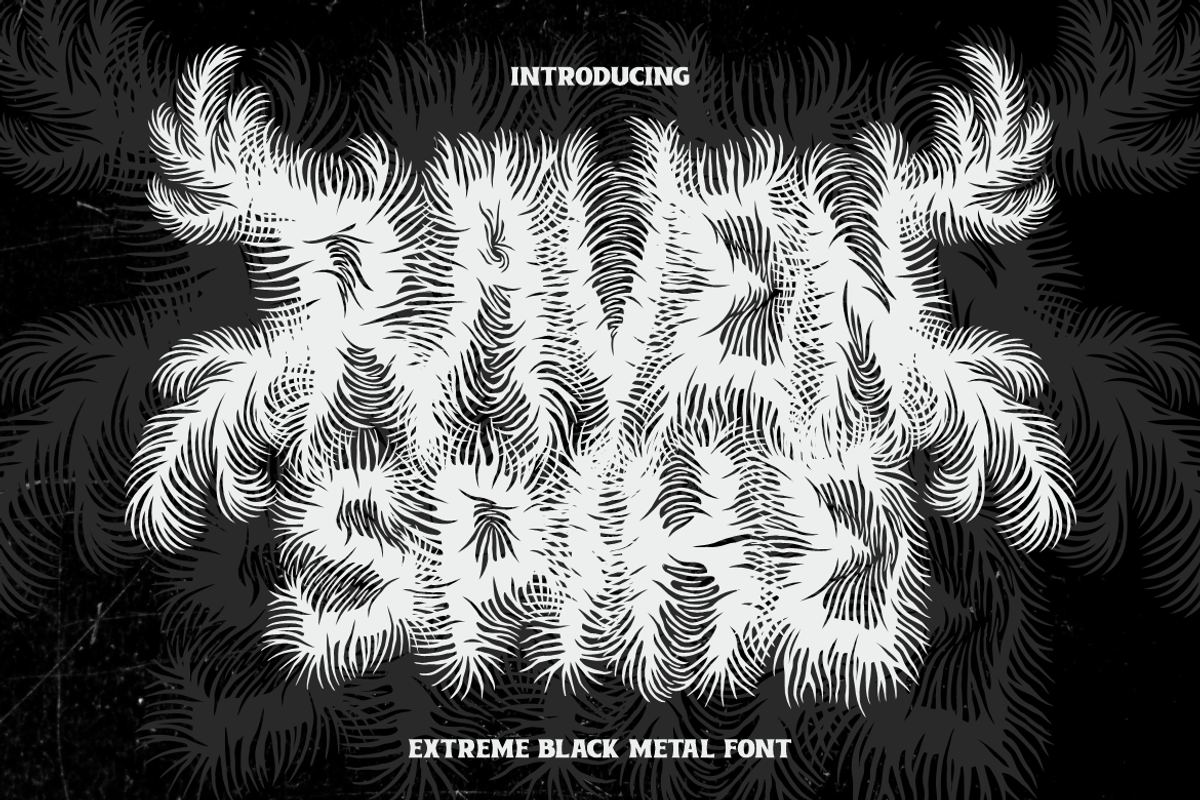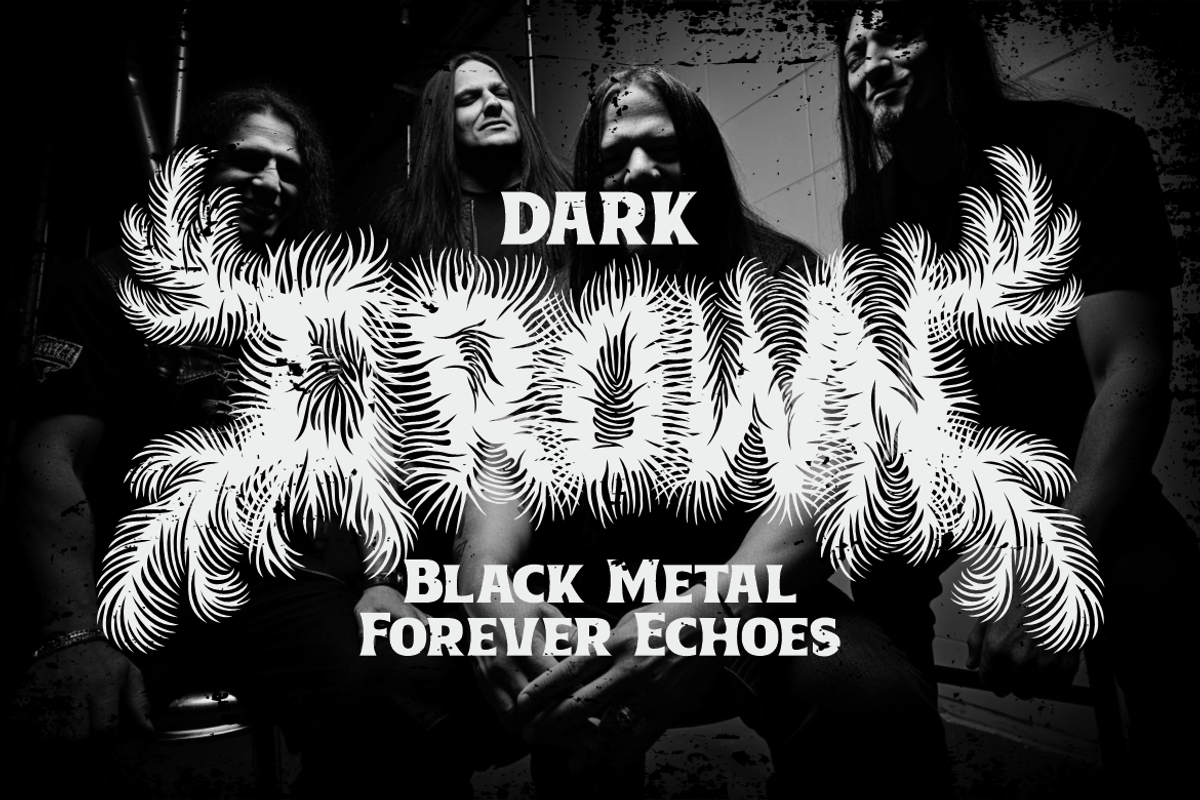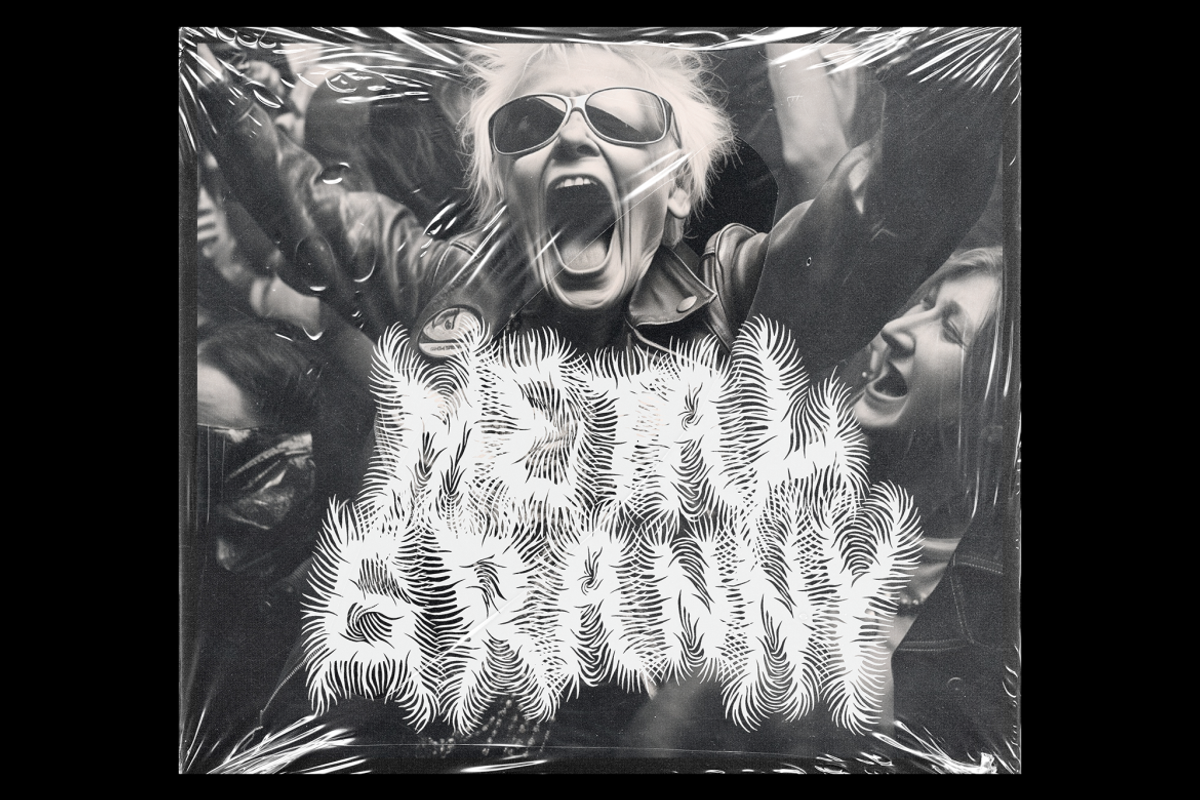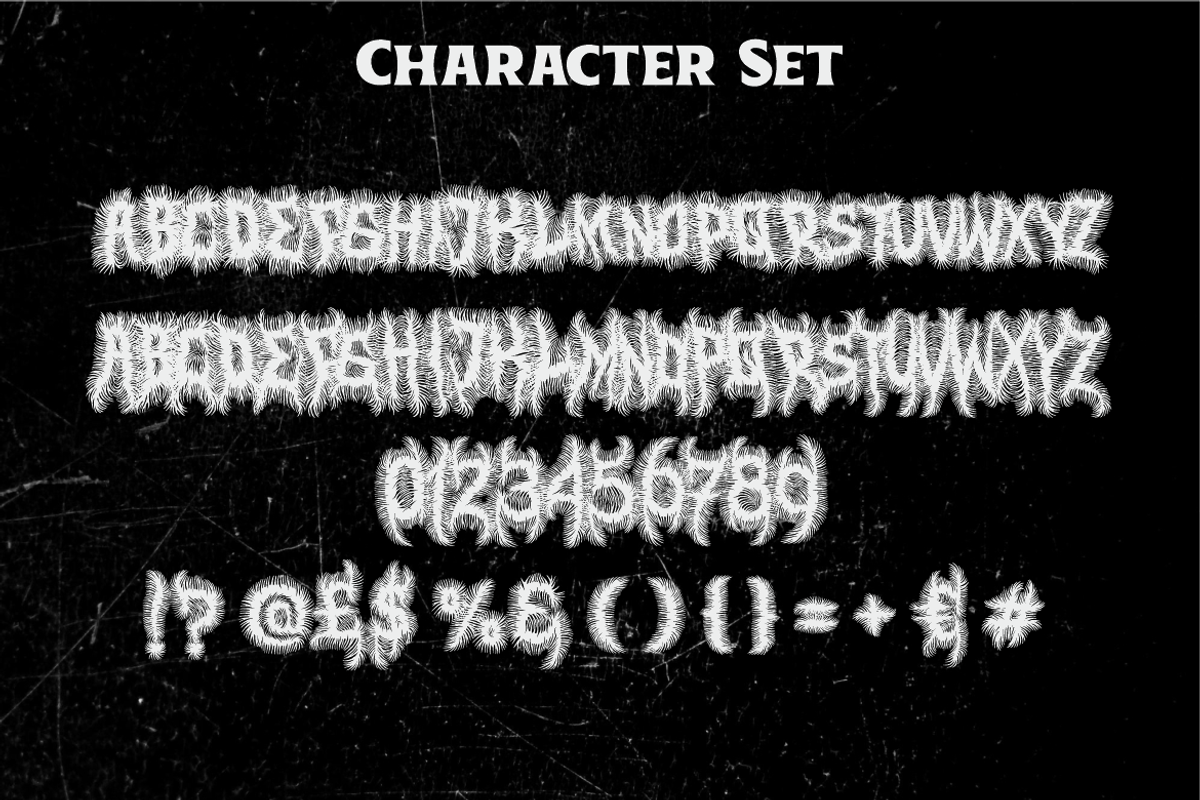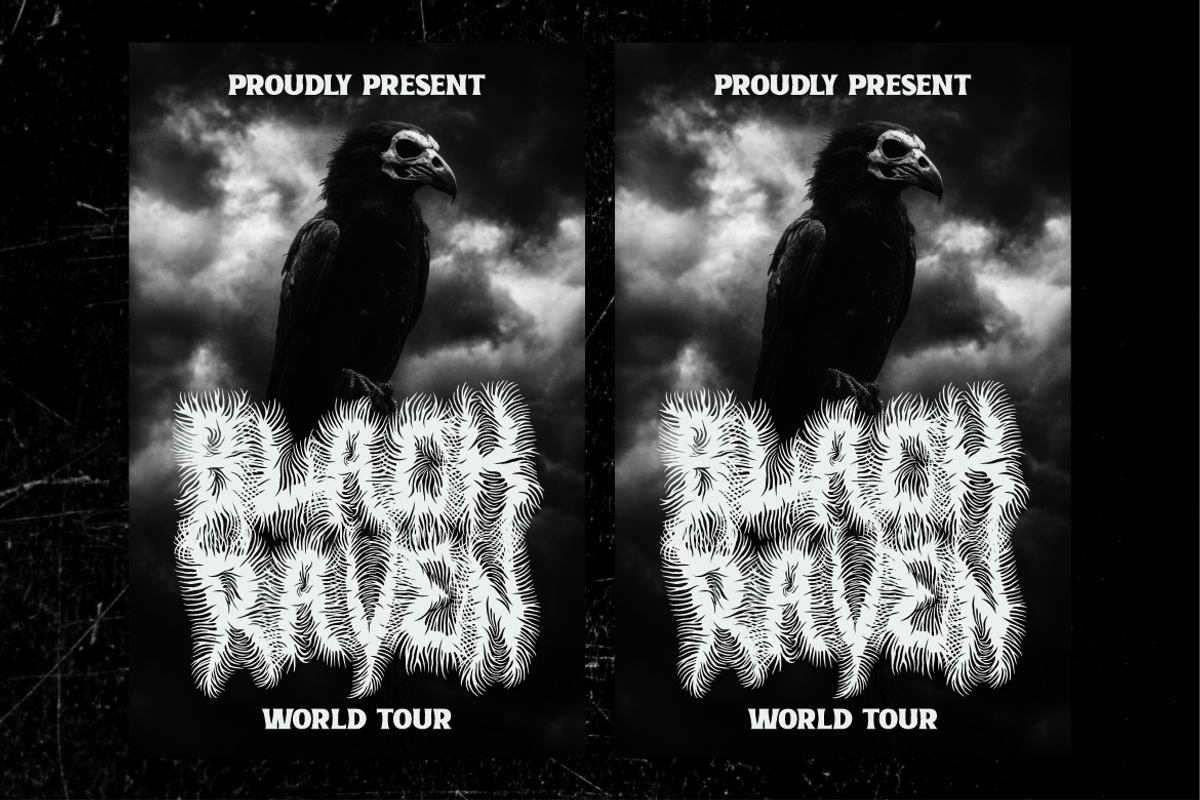
Raven Spike Extreme Black Metal Font
Raven Spike Extreme Black Metal Font delivers an aggressive and chaotic style shaped with dense, root-like textures and sharp organic spikes. Each character shows an irregular silhouette with high contrast between thin, hair-like lines and thick clustered strokes, creating a tangled, hostile structure. The letterforms appear tall and slightly condensed, which strengthens the extreme tone while keeping compositions compact. This font embraces a raw and brutal aesthetic often found in underground metal culture. Its visual complexity feels intense yet expressive, allowing designers to capture a harsh and unfiltered atmosphere. Raven Spike Extreme Black Metal Font offers a design language that pushes boundaries and suits projects needing a fearlessly wild identity.
The font works well for metal band logos, horror branding, extreme music posters, album covers, stickers, film titles, magazine spreads, apparel, and other bold creative work. It gives every headline a violent, shredded energy that instantly sets a dark mood. Each letter integrates flowing spikes that resemble twisted branches or torn fibers, making the font ideal for deathmetal, blackmetal, and hardcore themes. Raven Spike Extreme Black Metal Font supports dramatic layouts without losing its textured identity, giving designers a powerful tool for projects that aim for raw energy, darkness, and rebellion. Use it whenever you need extreme visual impact with a distinctive brutal aesthetic.